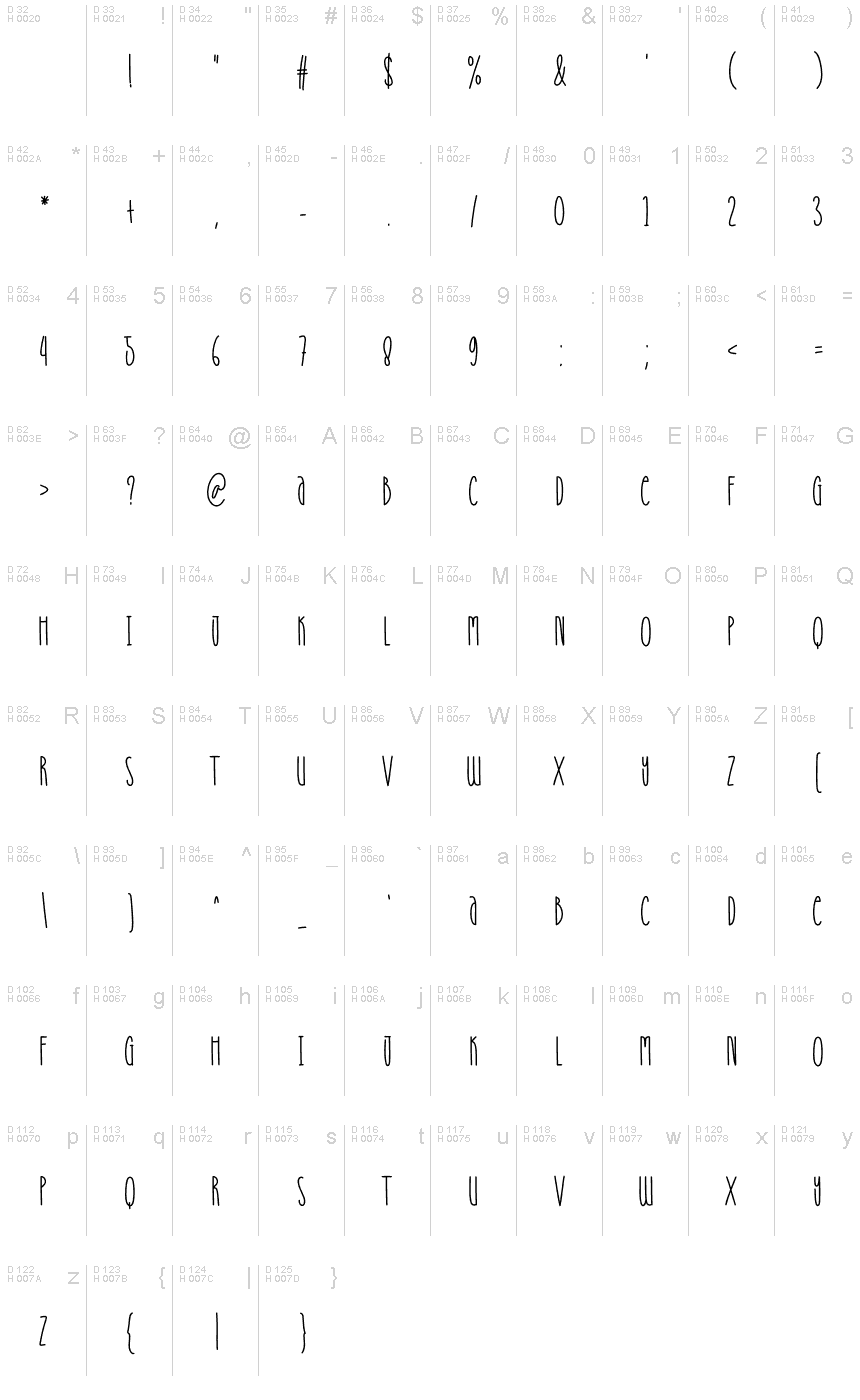
Simplebook
Simplebook is a captivating handwritten font designed by Scratchones. With its light weight and extra-condensed width, this font exudes elegance and sophistication.
Perfect for invitations, wedding stationery, and branding projects that desire a touch of personalization. Its block letter style adds a modern twist to any design while maintaining readability and clarity. Whether you're creating a minimalist logo or crafting eye-catching headlines, Simplebook will effortlessly elevate your projects to new heights of creativity and professionalism.
The latest style letters are perfect for wall displays, wedding invitations, social media post logos, advertisements, product packaging, product designs, labels, photography, watermarks, invitations, stationery, and any project that requires taste handwriting.
Perfect for invitations, wedding stationery, and branding projects that desire a touch of personalization. Its block letter style adds a modern twist to any design while maintaining readability and clarity. Whether you're creating a minimalist logo or crafting eye-catching headlines, Simplebook will effortlessly elevate your projects to new heights of creativity and professionalism.
The latest style letters are perfect for wall displays, wedding invitations, social media post logos, advertisements, product packaging, product designs, labels, photography, watermarks, invitations, stationery, and any project that requires taste handwriting.